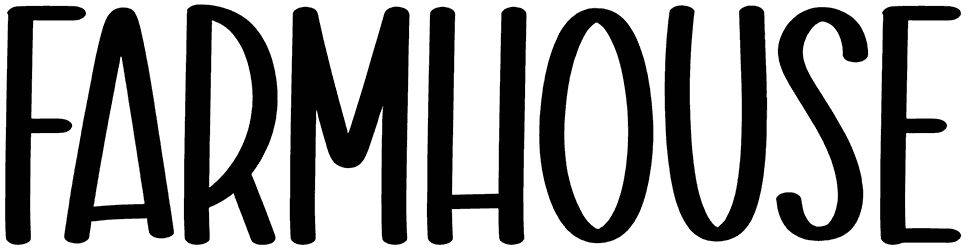
Farmhouse Font
A simple way to approach your followers is the use of casual and natural lettering, which this farmhouse font can bring to your layout. Farmhouse font has a minimal and modern form that makes it a nice option for varied projects, such as a novel book cover. There is no support for lowercase letters, but this cozy font is still enough to capture your eye.